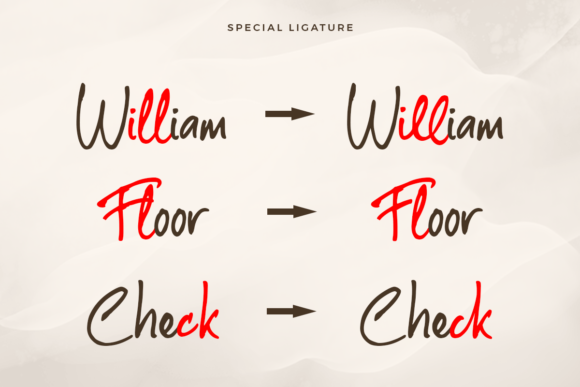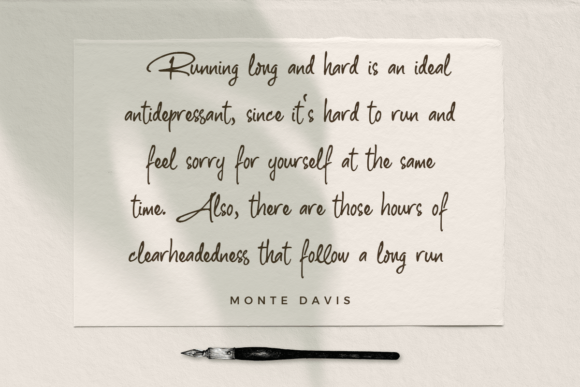
The Rambler Font
db-ku.com - Script & Handwritten -- The Rambler is a beautiful, fountain pen handwritten font. Simple but with a strong visual effect, this font will instantly make your creation more appealing than any others. Authentive is PUA encoded which means you can access all of the amazing glyphs and ligatures with ease!